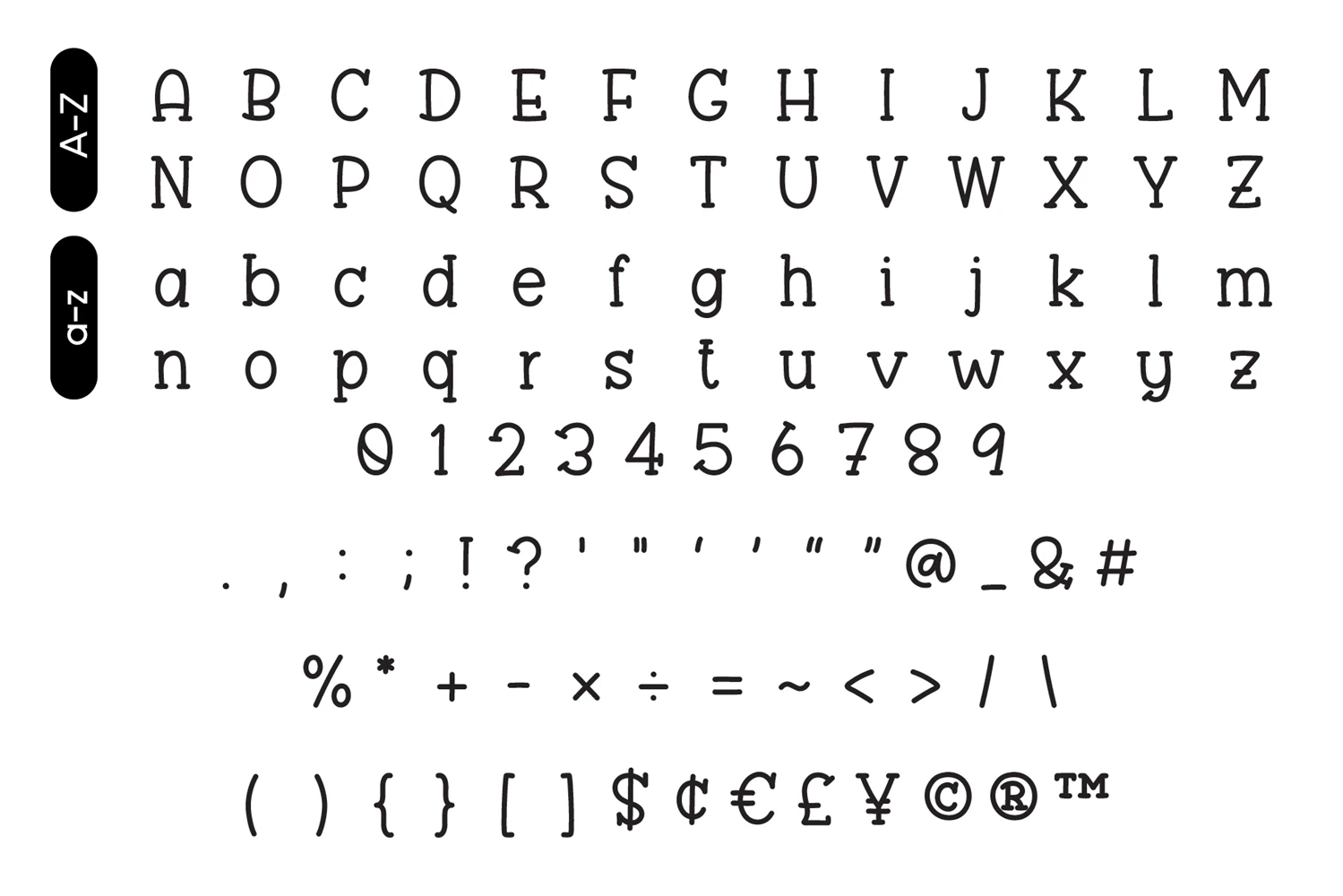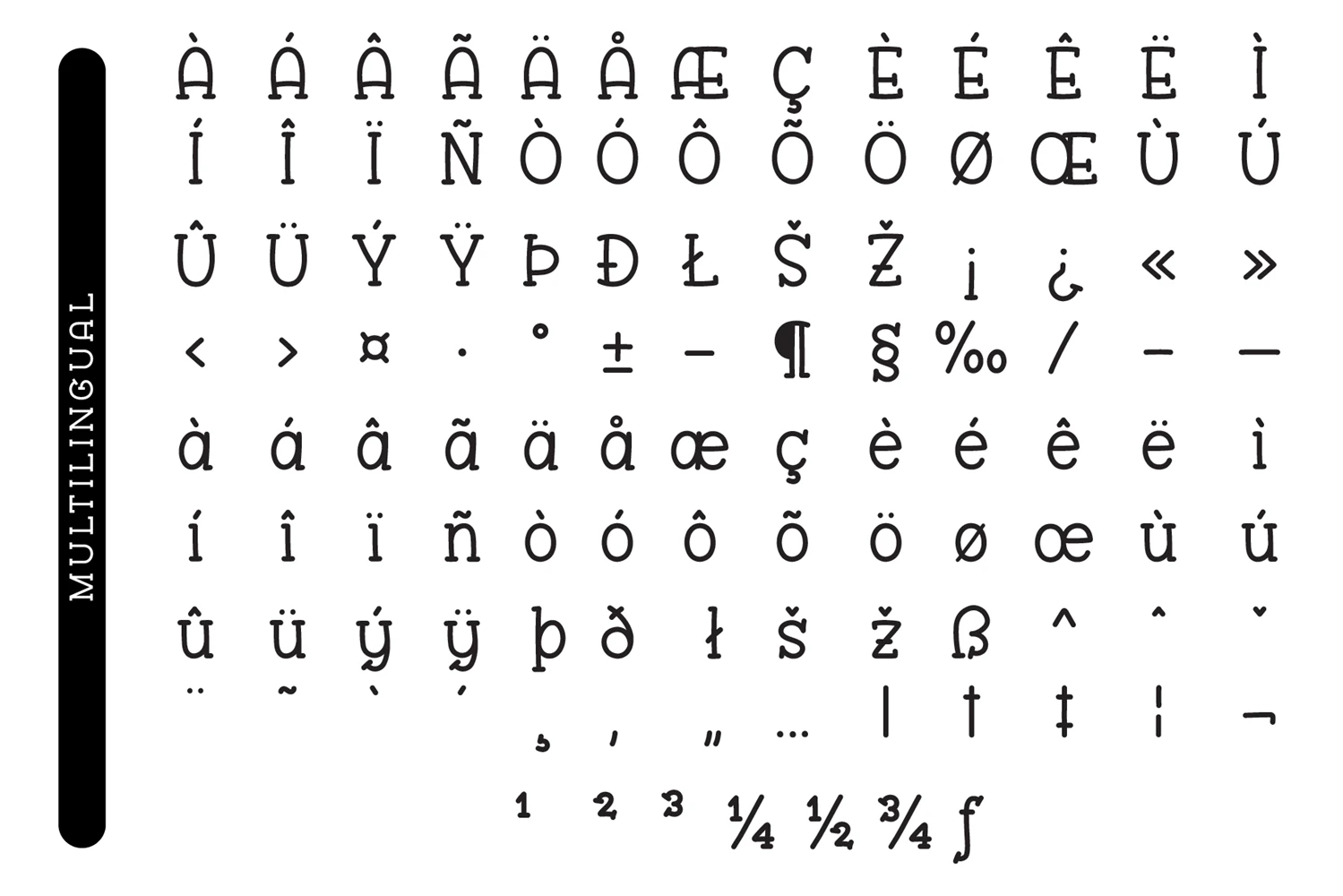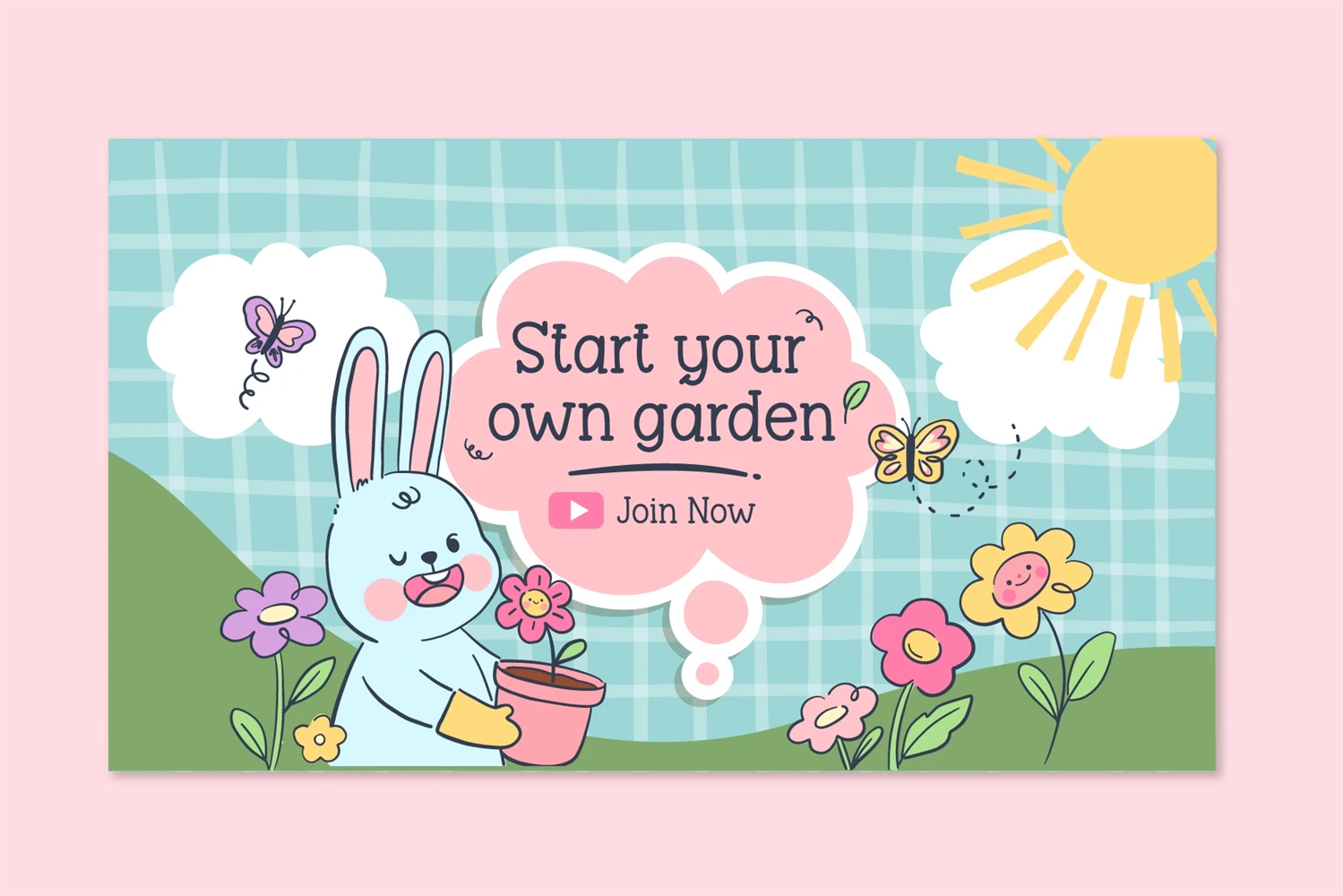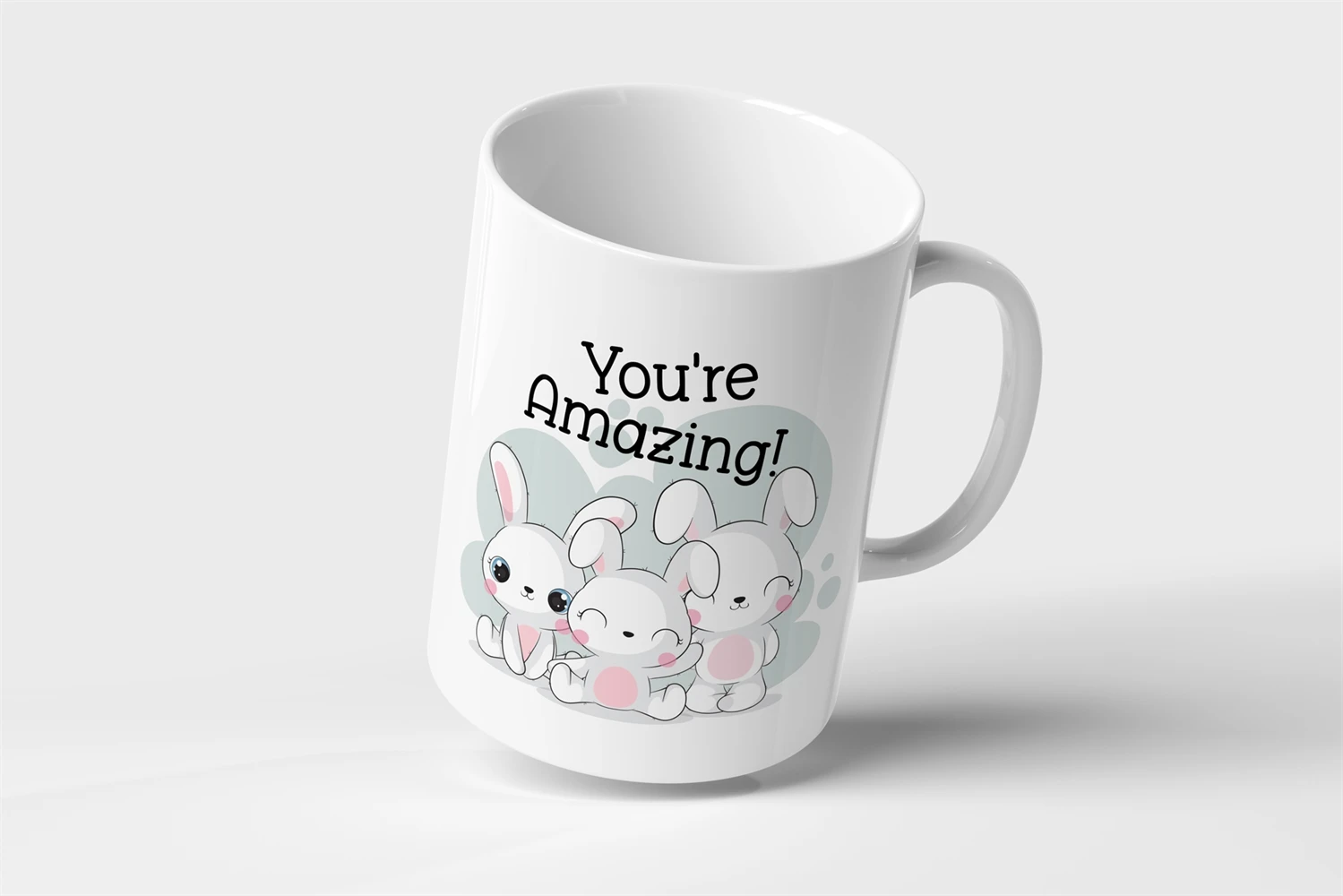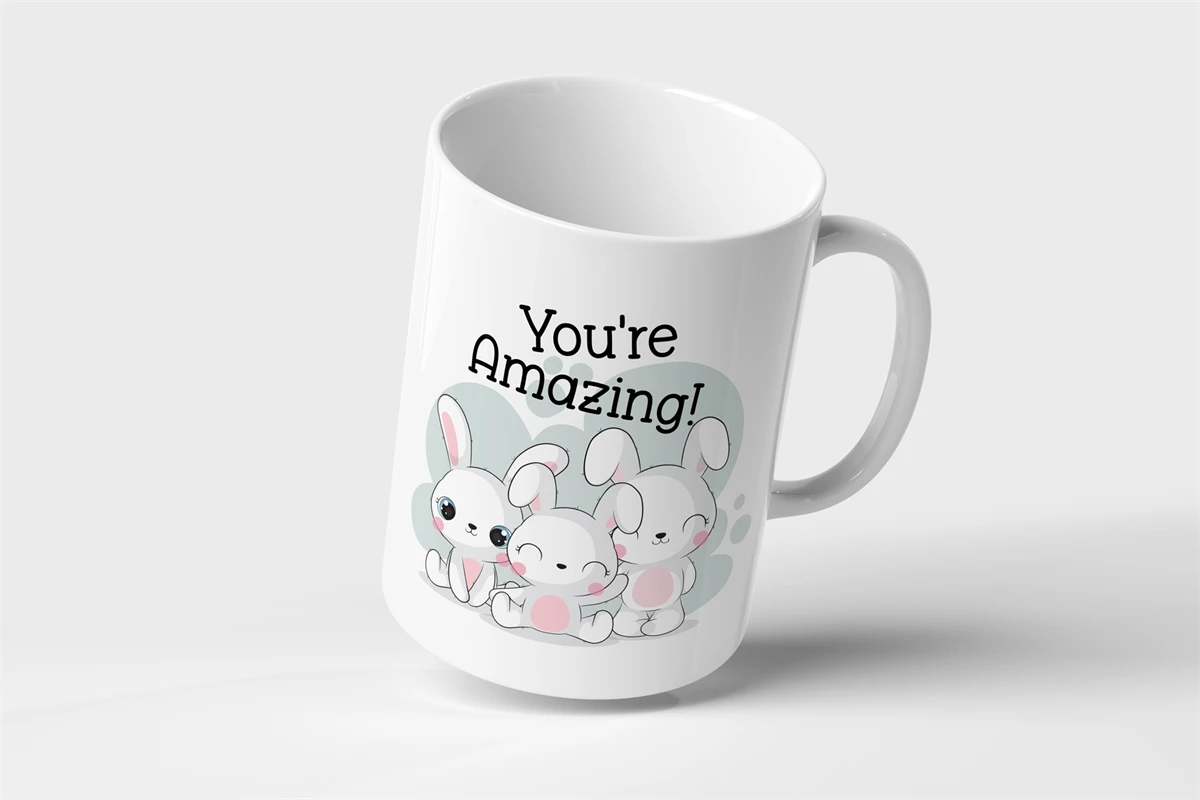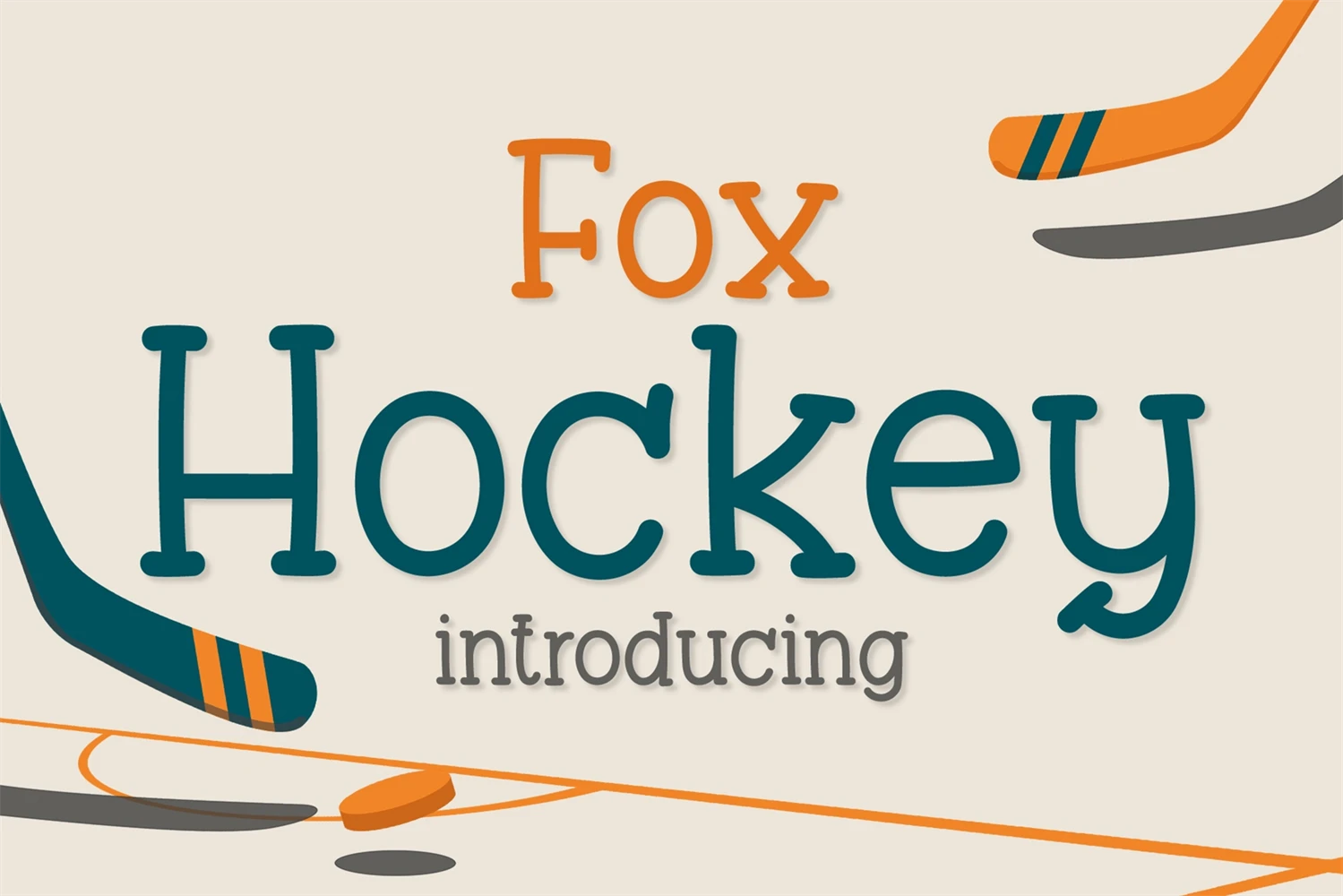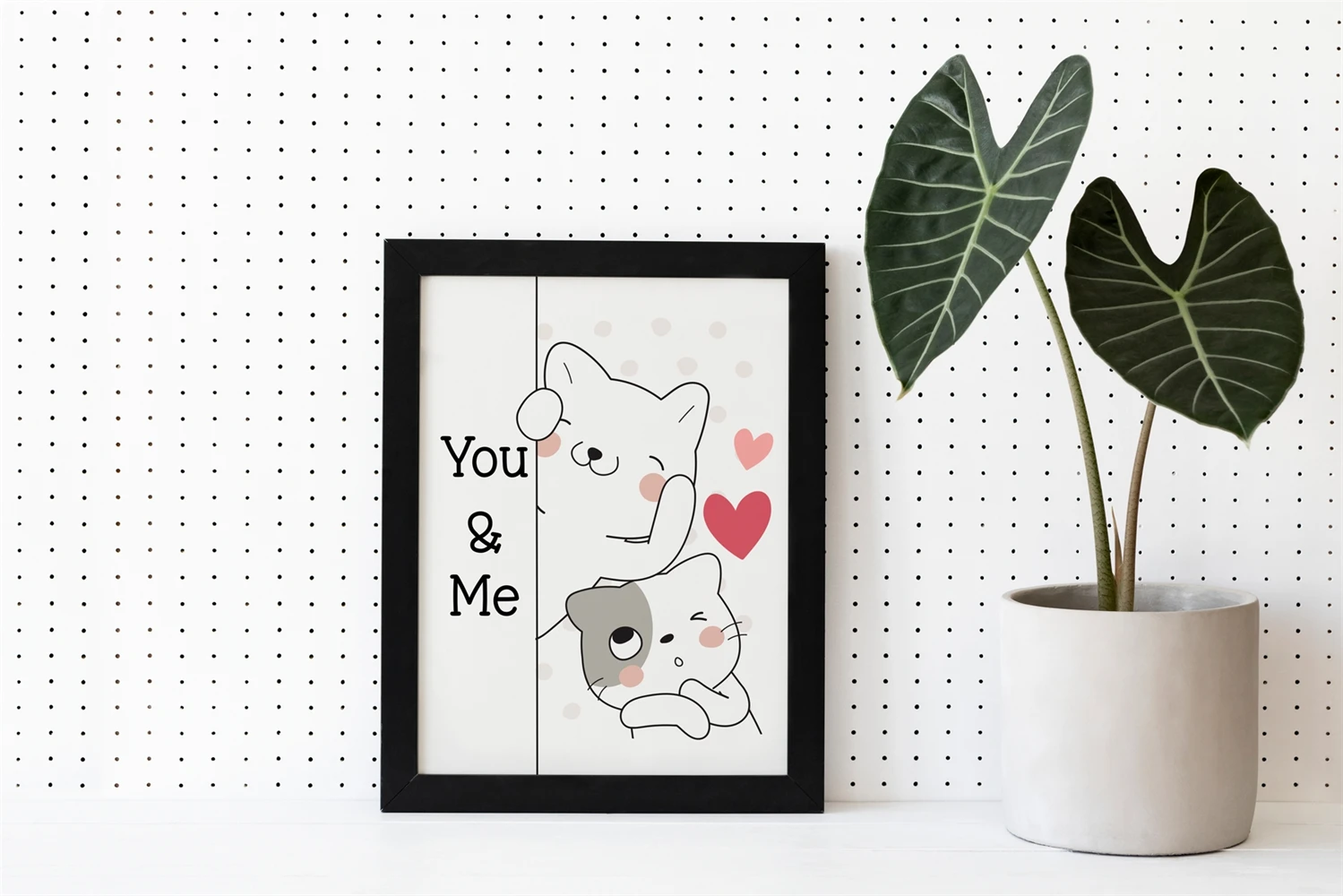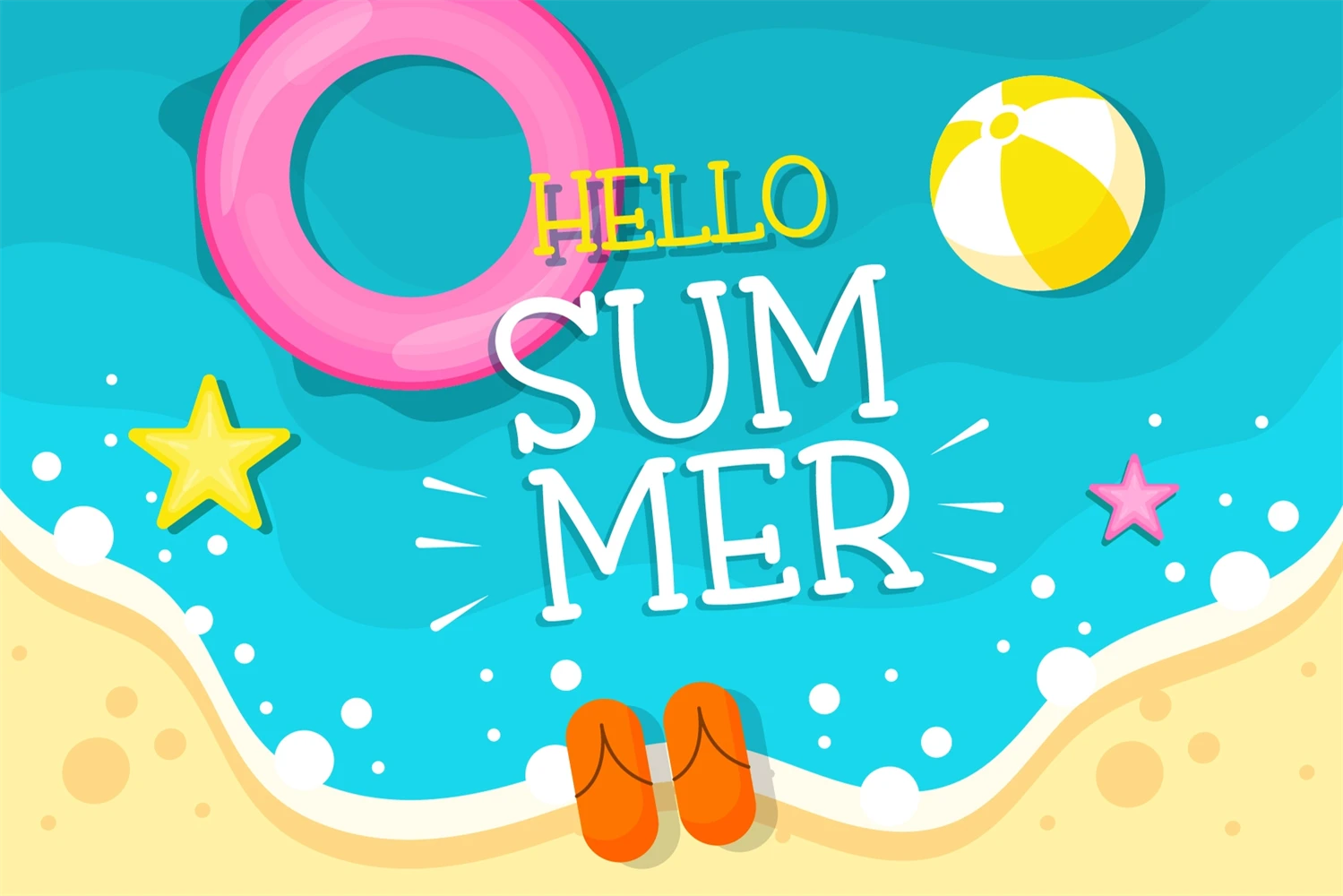
Introducing the Fox Hockey Font, a charming handwritten slab serif typeface that exudes cuteness and simplicity. With its clean lines and easy-to-read design, this font is the perfect choice for a wide range of creative projects. Whether you're creating inspirational quotes, captivating headings, engaging blogs, striking logos, or inviting invitations, the Fox Hockey Font adds a delightful touch to any project. Its handwritten style brings a unique feel, adding warmth and character to your designs.